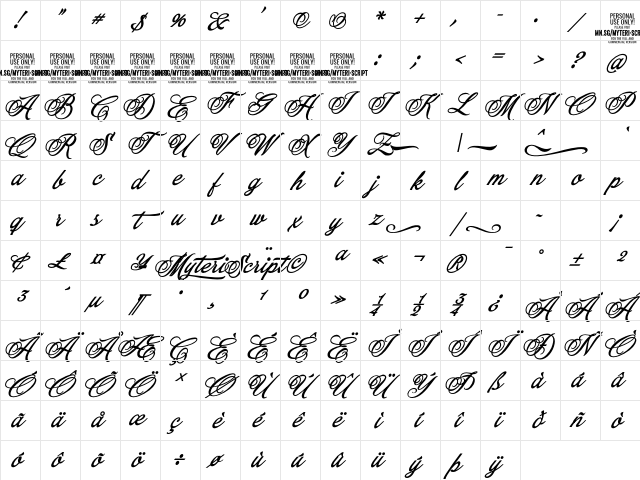
Myteri Script PERSONAL USE ONLY Bold Italic Free Font
Myteri Script PERSONAL USE ONLY Bold Italic
Foundry: Mans Greback AB
Designer: Mans Greback
Design Context for Myteri Script PERSONAL USE ONLY
Myteri Script PERSONAL USE ONLY flows with the natural rhythm of handwritten lettering, making it ideal for designs that call for warmth and personal expression. Its bold stroke weight gives it real presence on the page.
Font Pairing: Combine Myteri Script PERSONAL USE ONLY with a simple geometric sans for maximum contrast - the tension between flowing curves and clean structure is a classic typographic pairing.
Pro Tip: Use Myteri Script PERSONAL USE ONLY for short runs of text - names, titles, or taglines. Extended body copy in script faces tires the eye quickly.